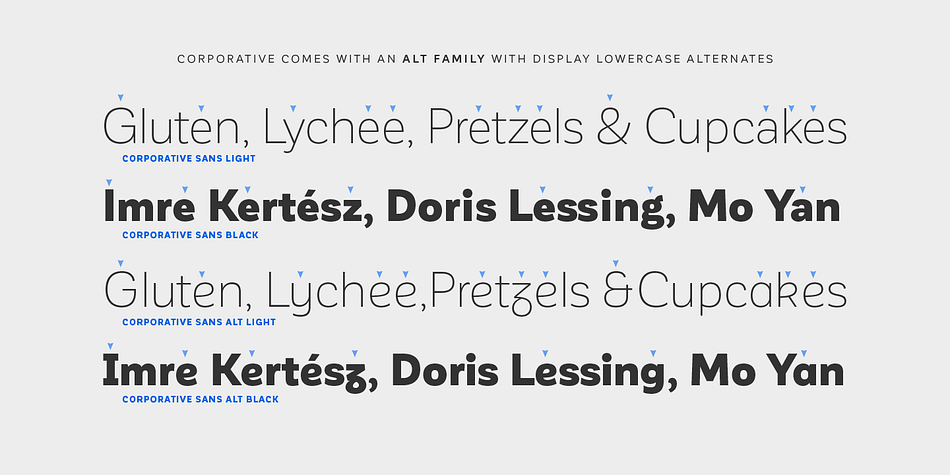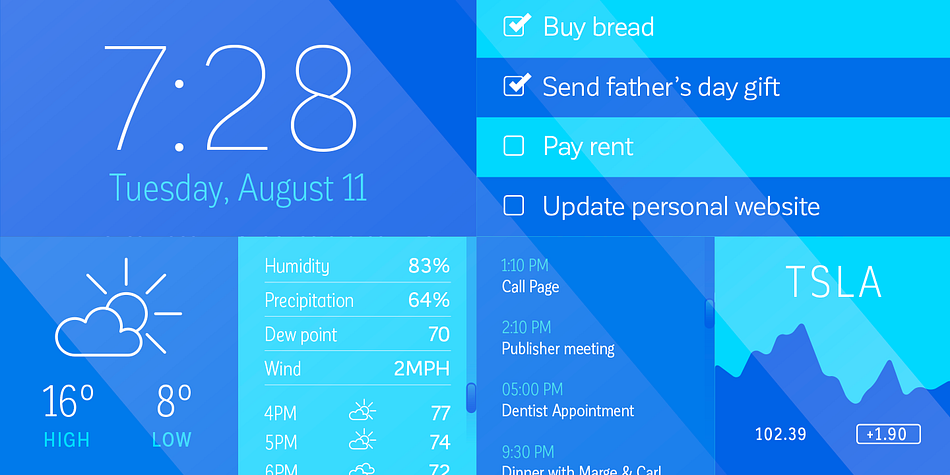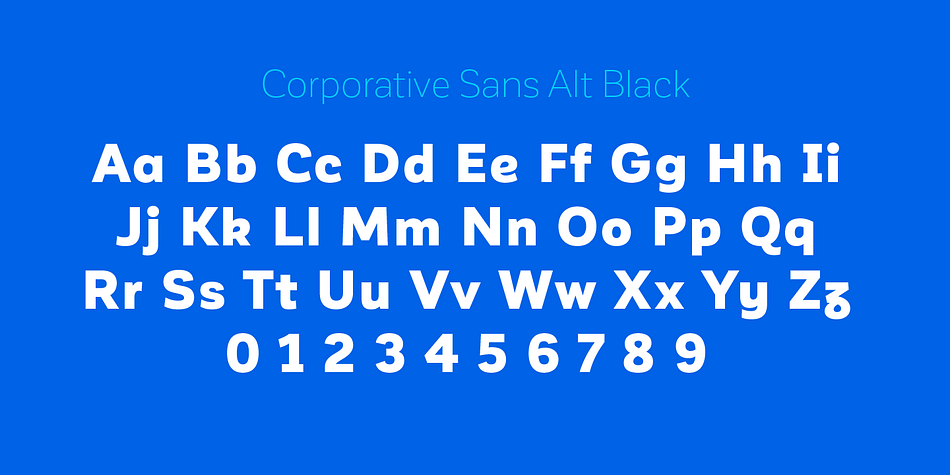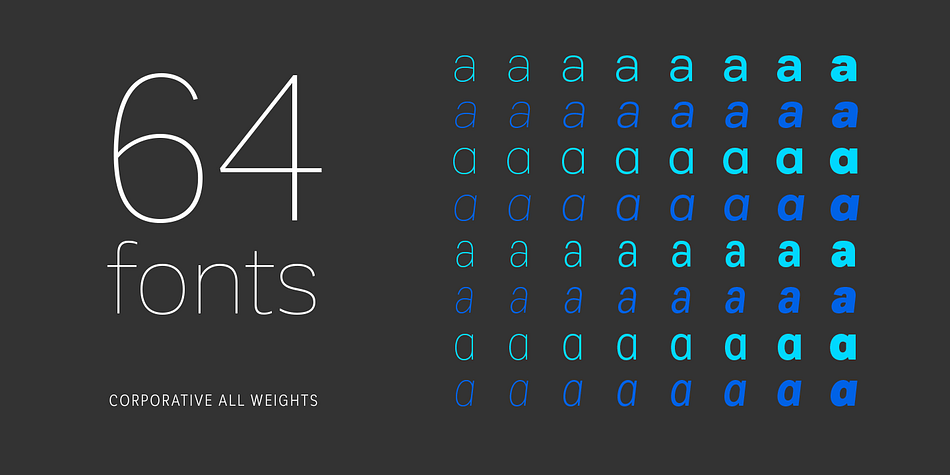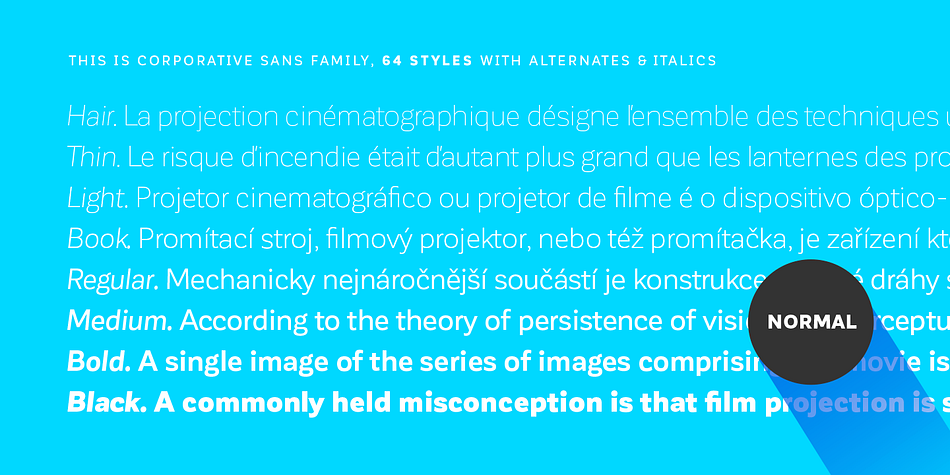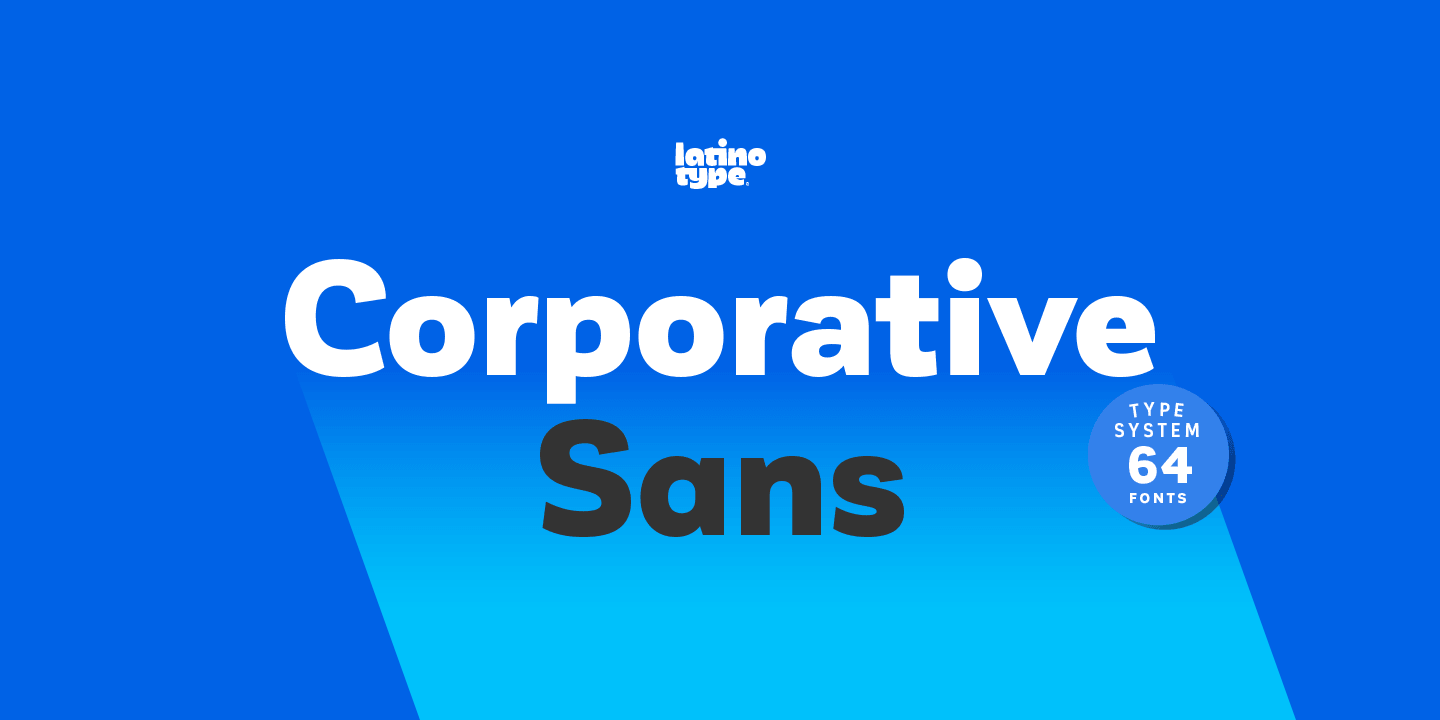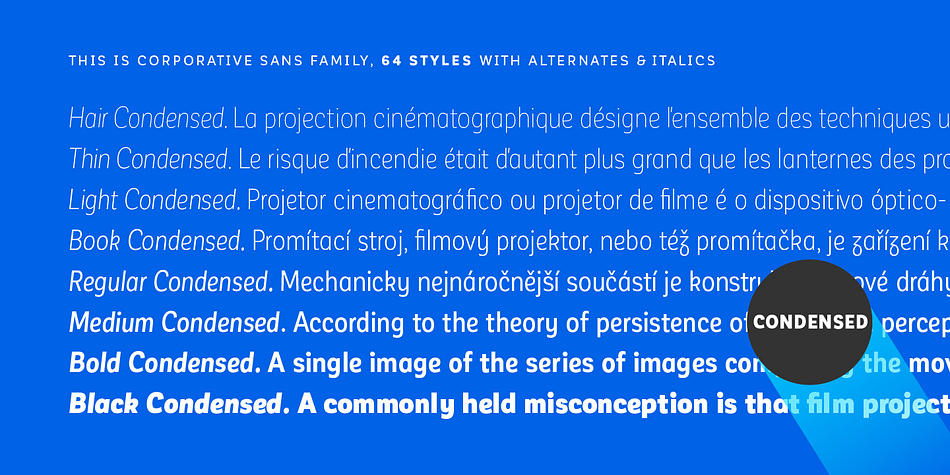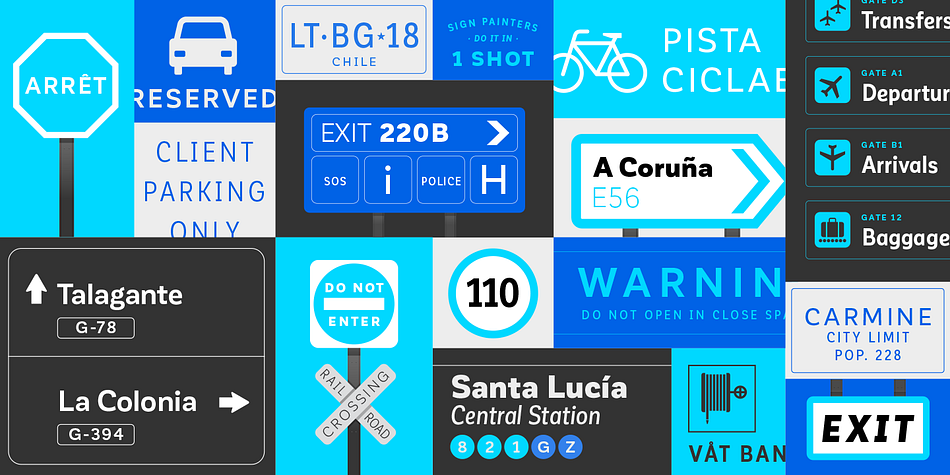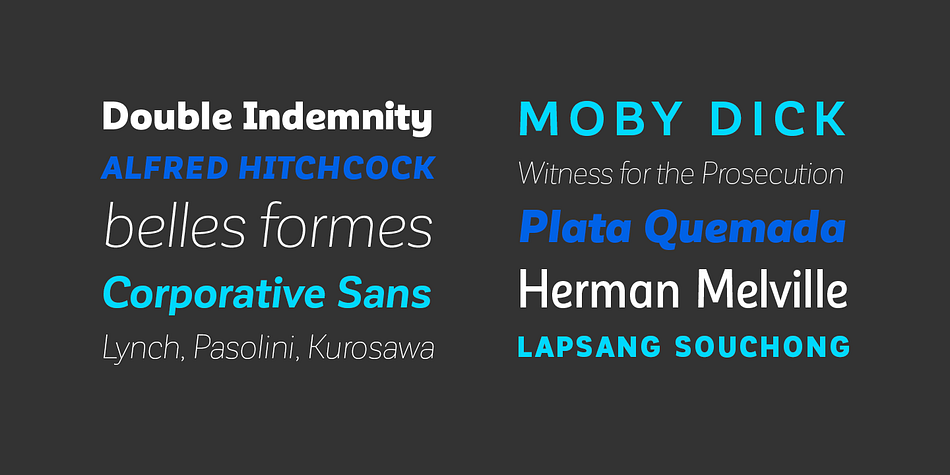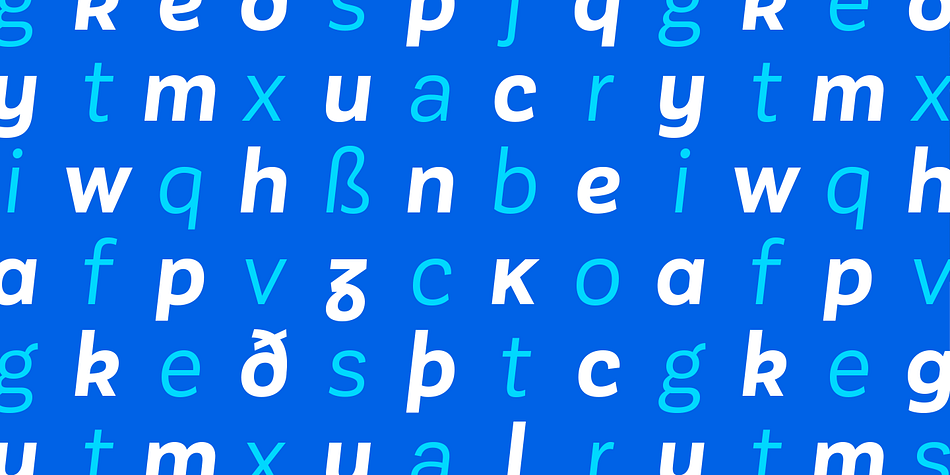
Designed by Latinotype Team, Corporative Sans is a sans serif font family. This typeface has sixty-four styles and was published by Latinotype.
Corporative Sans is the new version of Corporative. This font has a marked
personality and distinctive traits, what makes it suitable to be used at large text sizes. Since it is a condensed font, it can also be used in smaller sizes.
Corporative Sans comes with the Latinotype’s standard set of 350 characters, making it possible to use the font in 128 different languages.
Corporative Sans provides users with a wide range of characters, weights and widths for every project. By combining different variants, designers can achieve the best results.
The family consists of 64 fonts: a basic family that includes 8 weights plus italics, an alternative family of 8 weights with matching italics and 2 condensed families, one regular and one alternative, both with italics.
Latinotype has added new faces to its team. Latinotype Team now comprises: Rodrigo Fuenzalida, César Araya, Bruno Jara, Luciano Vergara and Daniel Hernández. Corporative Sans was created by Latinotype Team and developed by Javier Quintana, Rodrigo Fuenzalida and César Araya, under the supervision of Luciano Vergara and Daniel Hernández.